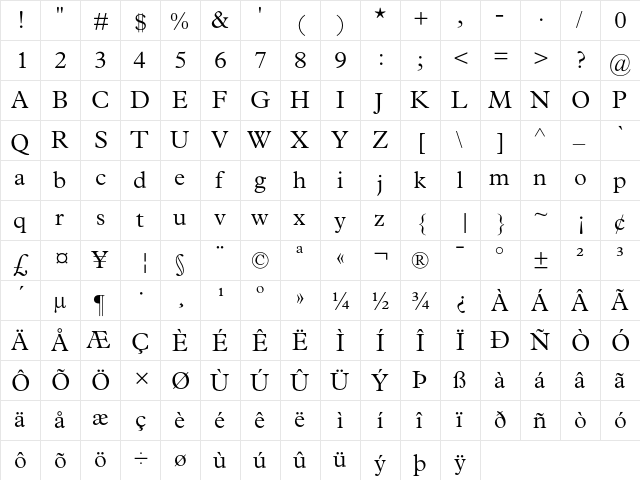
Plantin Light Font Preview
Plantin Light
Design Context for Plantin Typeface
Plantin offers clean, dependable letterforms without strong stylistic allegiance, making it a practical choice for designers who need flexibility. Its slender proportions lend an understated elegance to any composition.